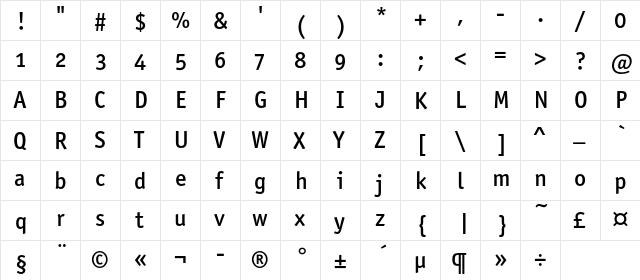
OfficinaSansMediumOSC Regular
Design Context for OfficinaSansMediumOSC Typeface
OfficinaSansMediumOSC is a composed and adaptable typeface that performs quietly and consistently across a wide range of design contexts.